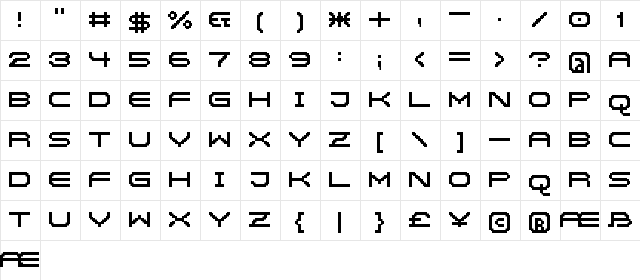
Birdy No2 Regular
Design Context for Birdy No2 Typeface
Birdy No2 takes a measured approach to typography — its balanced proportions and neutral character make it a reliable workhorse for both digital and print work.